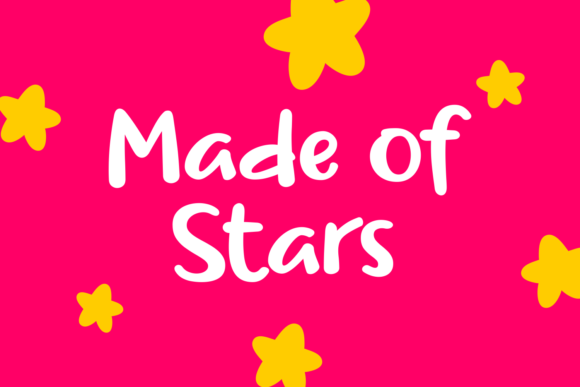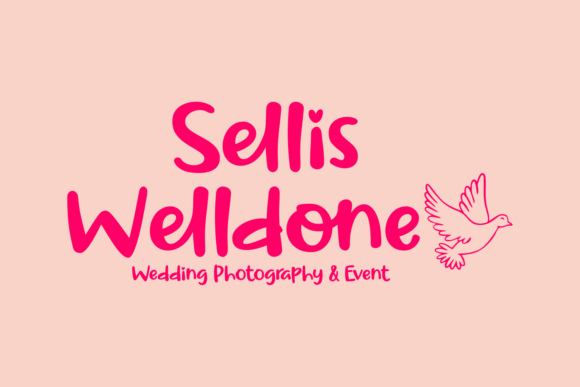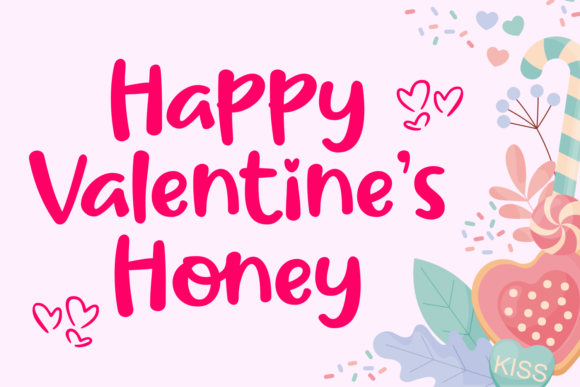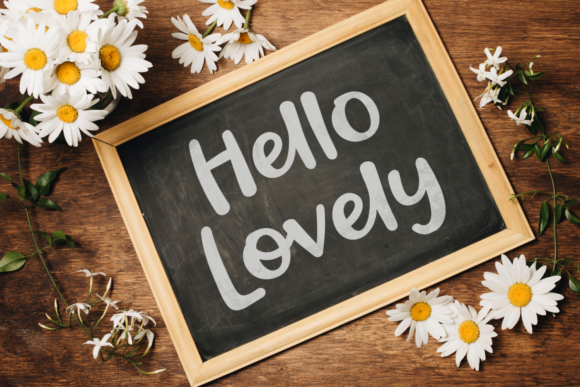
Introduction to Kindness Lovely Font
Have you ever been working on a creative project, pouring your heart and soul into it, only to feel like something is missing? You’ve got the perfect message, the perfect design, but it’s just not quite there. That’s where the right design resource comes in – something that adds a touch of personality, a dash of whimsy, and a whole lot of heart. For designers looking to elevate their work, I’m excited to introduce you to the Kindness Lovely Font.
This bouncy and stylish display font is a game-changer for any creative project. With its high-quality design and transparent background, it’s the perfect addition to any design. And the best part? It’s free to download, making it an accessible resource for designers of all levels.
Key Features of Kindness Lovely Font
- High-quality design: The Kindness Lovely Font is a premium quality font, ideal for creative projects that demand sophistication and elegance.
- Transparent background: The font’s transparent background allows for easy integration with various design elements, giving you more creative freedom.
- High-resolution design: The font is designed at 300 DPI, making it suitable for both print and digital applications.
- Unique characteristics: The Kindness Lovely Font features a unique blend of modern and classic elements, giving your creative project a distinctive touch.
- Perfect for various projects: Whether you’re working on a logo, branding, or a creative writing project, the Kindness Lovely Font is an excellent choice due to its versatility and high-quality design.
Honest Review: Kindness Lovely Font
I recently had the chance to work with the Kindness Lovely Font, and I must say it’s been a delightful addition to my design projects. ✨ This free download has been a game-changer for me, offering a high-quality, elegant look that’s perfect for creating a warm and inviting atmosphere in any design.
The Kindness Lovely Font is ideal for a wide range of creative projects, from branding and marketing materials to digital products and websites. Its clean, cursive design makes it perfect for headers, titles, and body text, and its transparent background allows for seamless integration with any design element.
- High-quality design that’s perfect for creating a warm and inviting atmosphere
- Transparent background for easy integration with other design elements
- Elegant, cursive design ideal for headers, titles, and body text
- ⚠️ Limited font styles and weights available
- ⚠️ May not be suitable for projects requiring a bold or sans-serif font
Overall, I’m thoroughly impressed with the Kindness Lovely Font. Its elegant design and high-quality look make it an excellent addition to any design project. While it may have some limitations, it’s definitely worth considering for your next creative project.
Tips for Getting the Most Out of Kindness Lovely Font
For optimal results, use the Kindness Lovely Font in conjunction with a clean and simple design. The transparent background feature allows for a seamless integration with other design elements, creating a polished and professional look.
Common Use Cases for Kindness Lovely Font
The Kindness Lovely Font is ideal for a variety of creative projects, including social media graphics, business cards, and wedding invitations. Its high-quality design and transparent background make it a versatile resource for designers and non-designers alike.